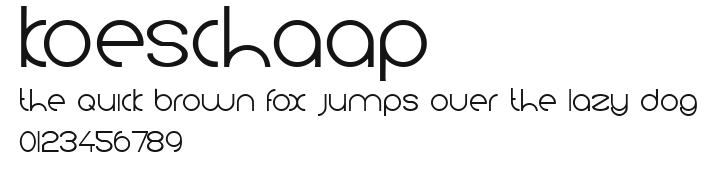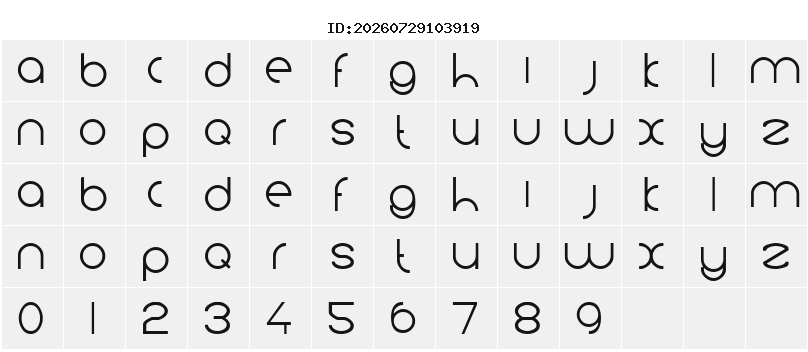
koeschaap Preview
About koeschaap.ttf
koeschaap.ttf is a modern, elegant sans-serif font designed for ultimate readability and visual harmony. Perfect for branding, headlines, web design, and print materials.